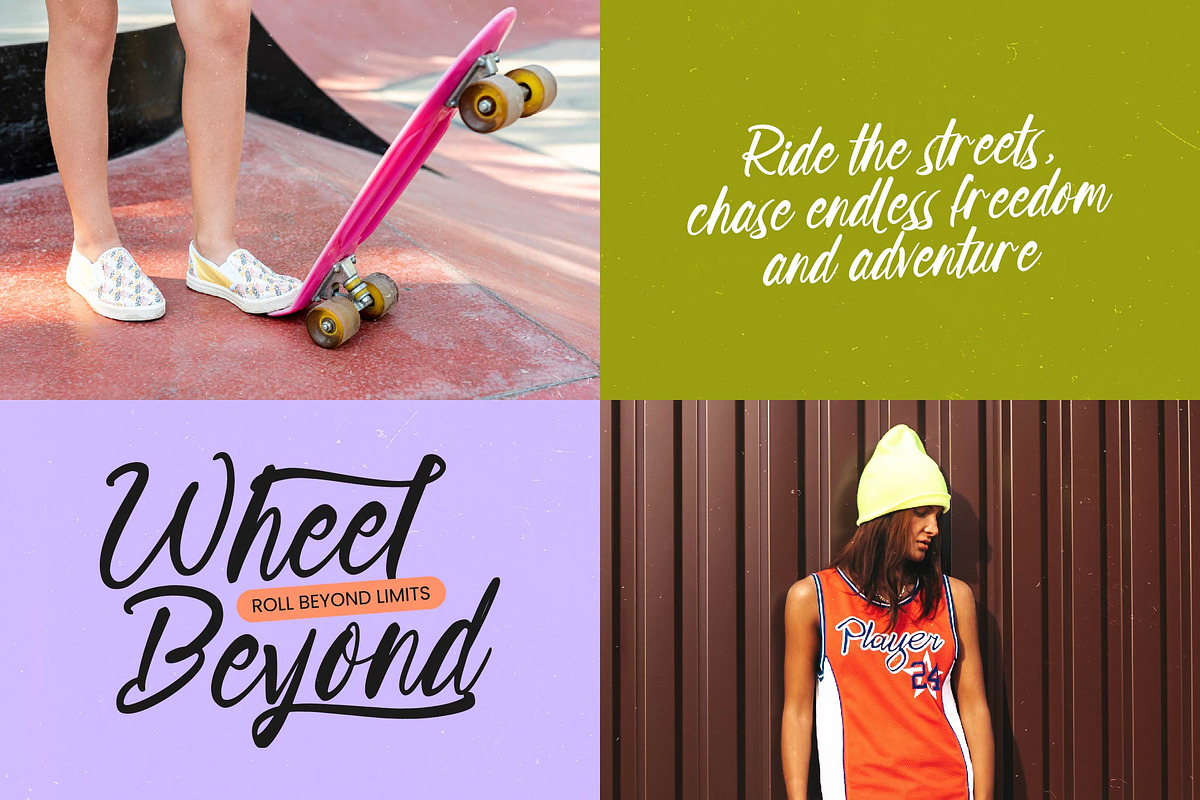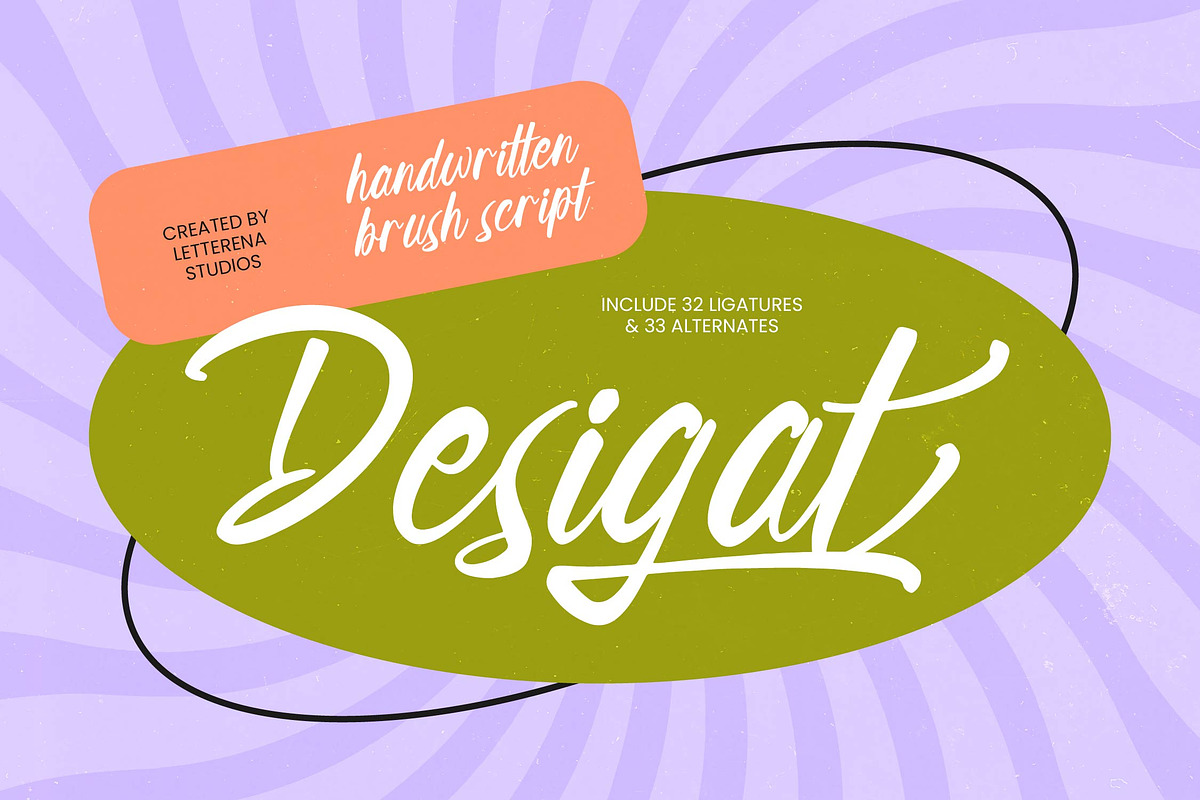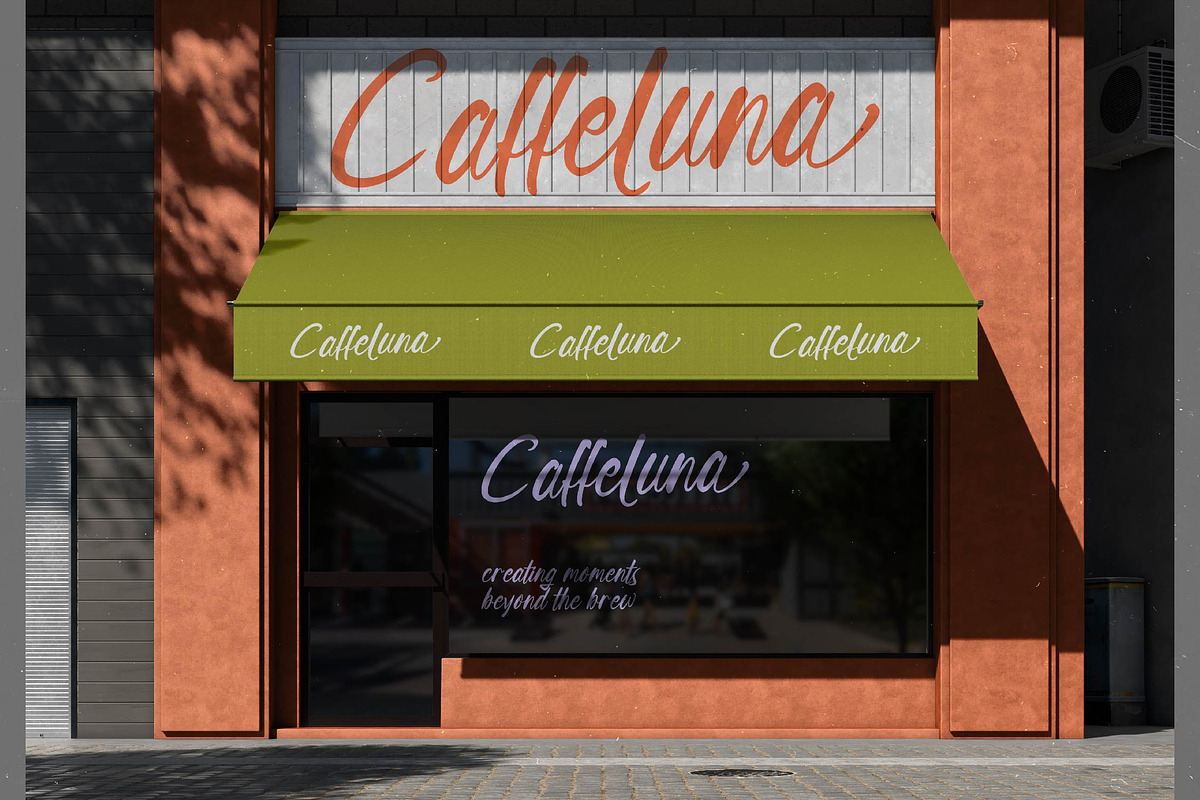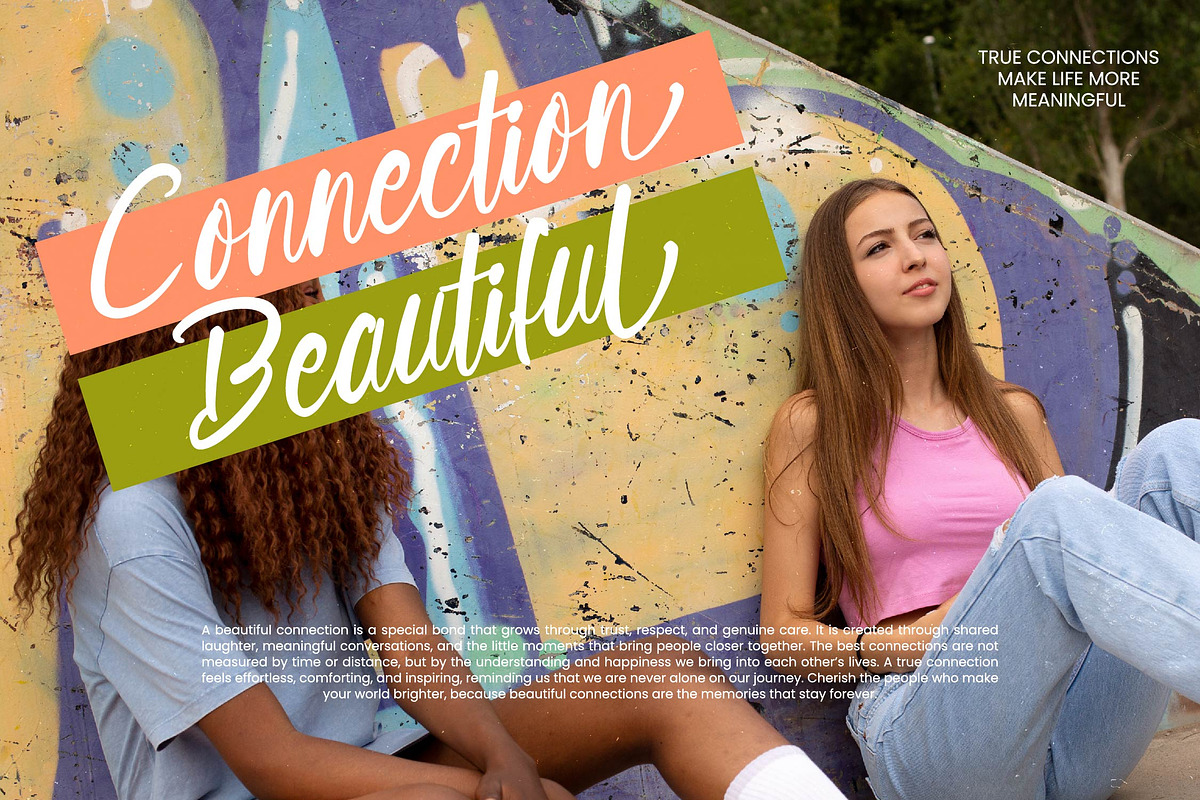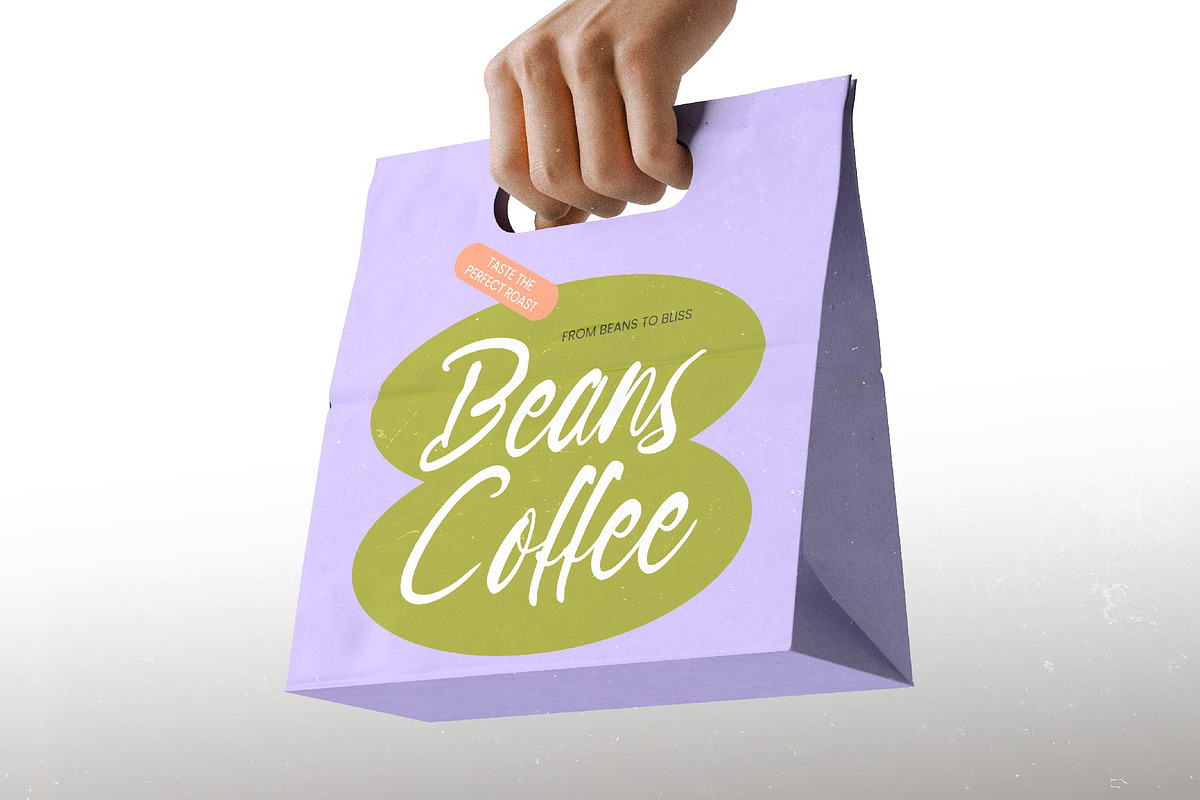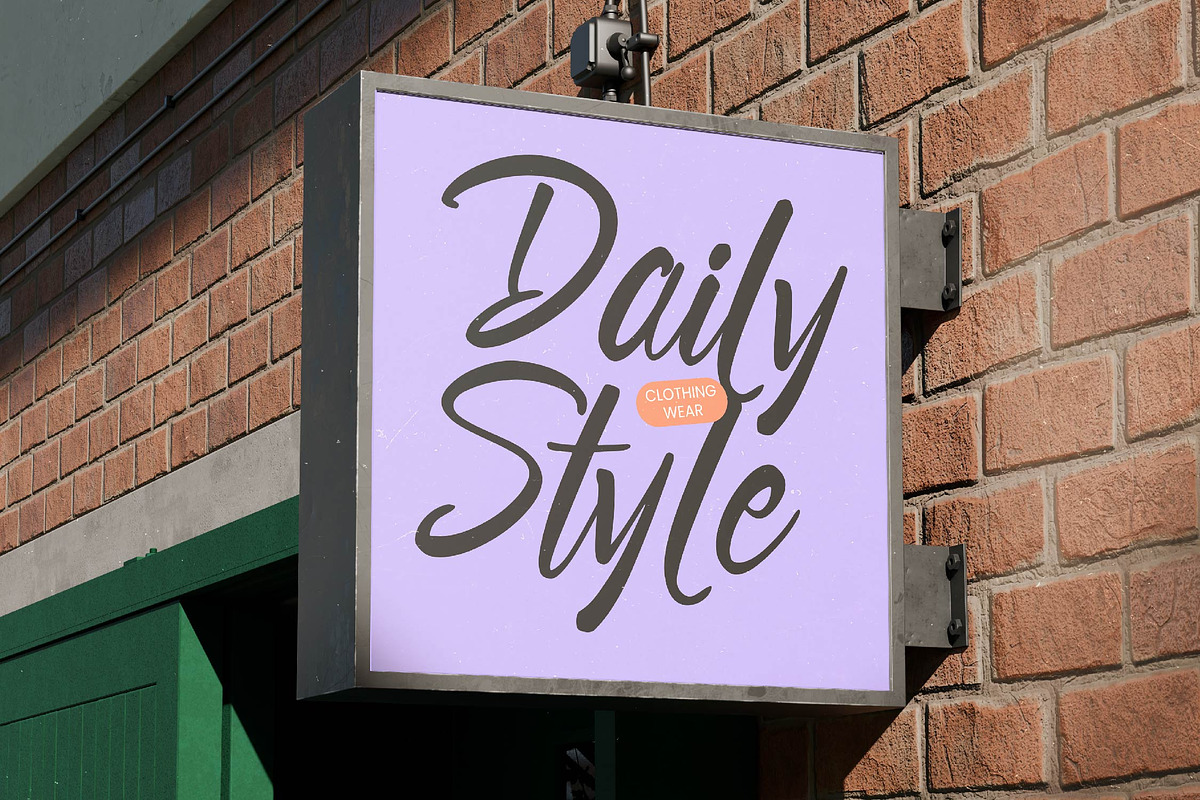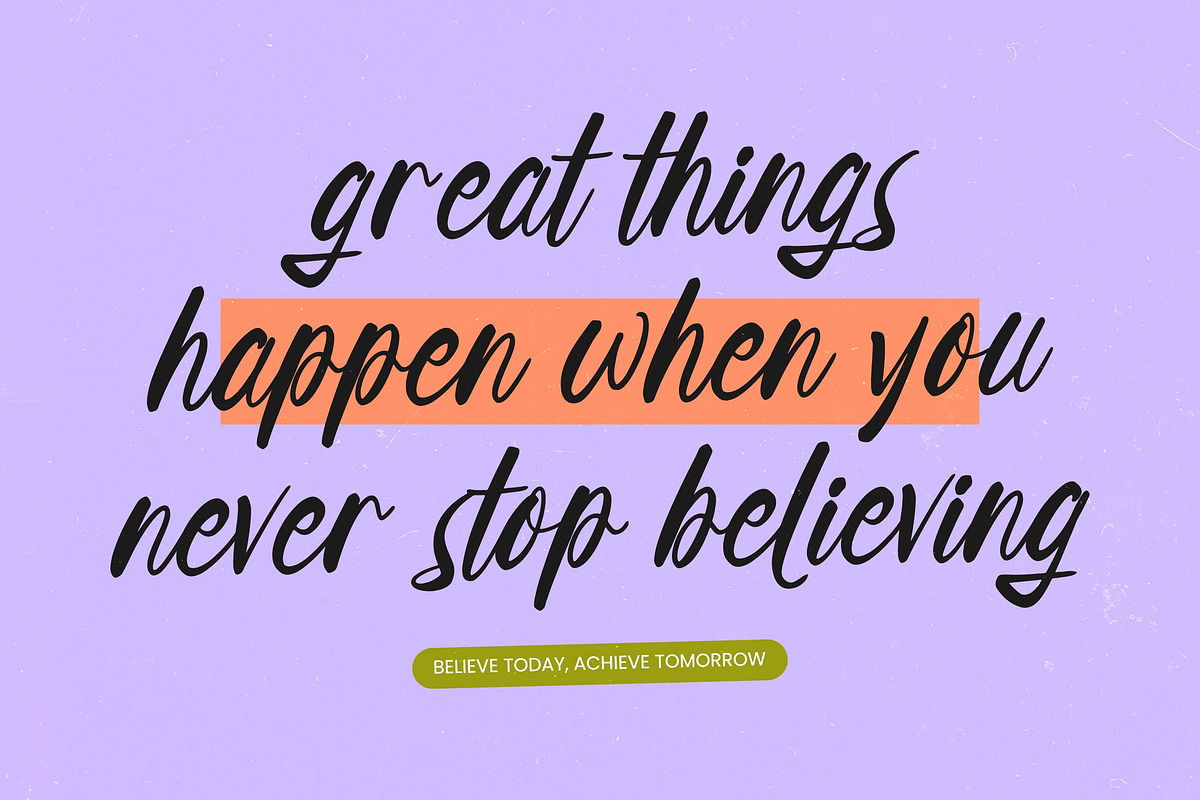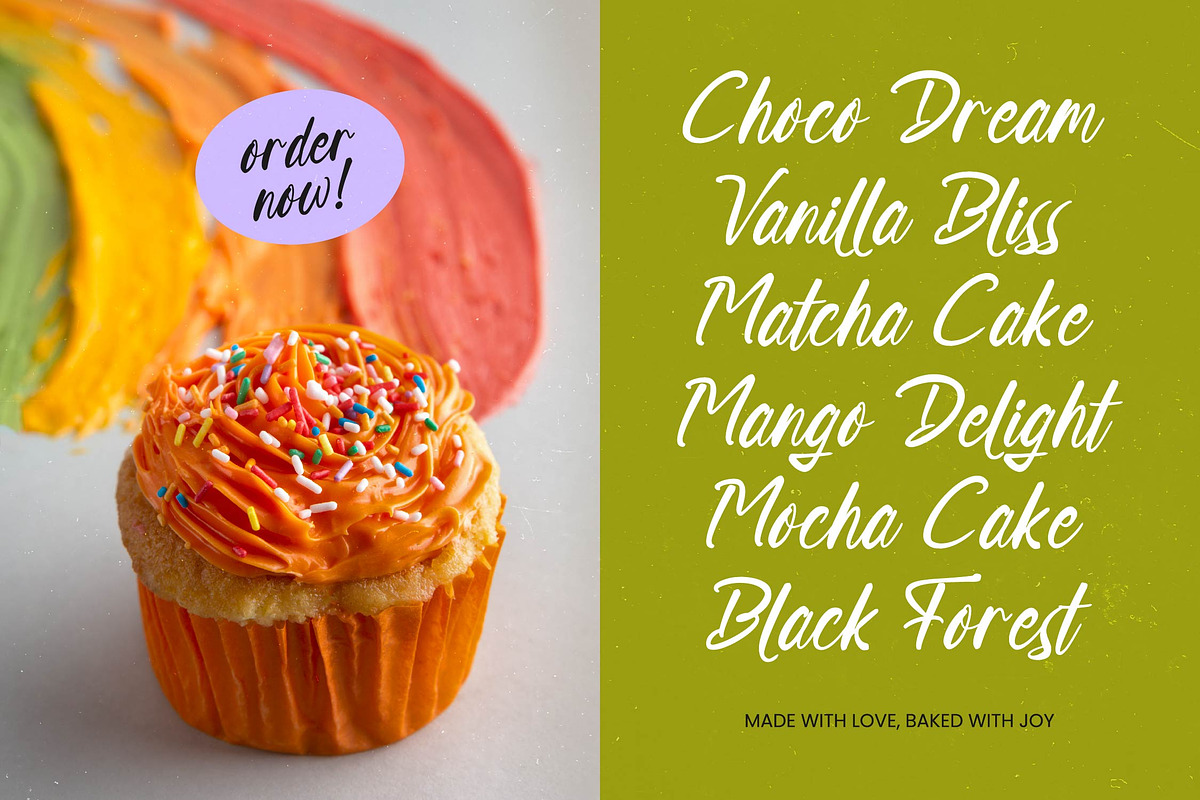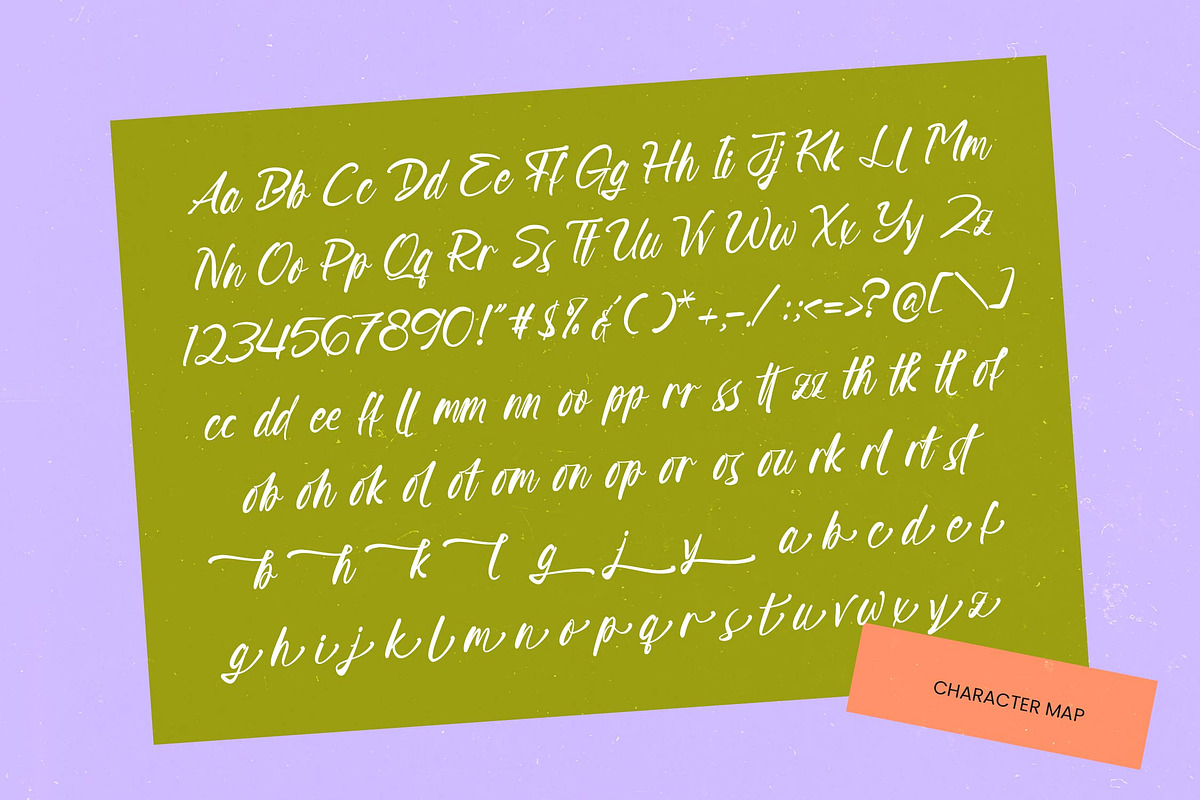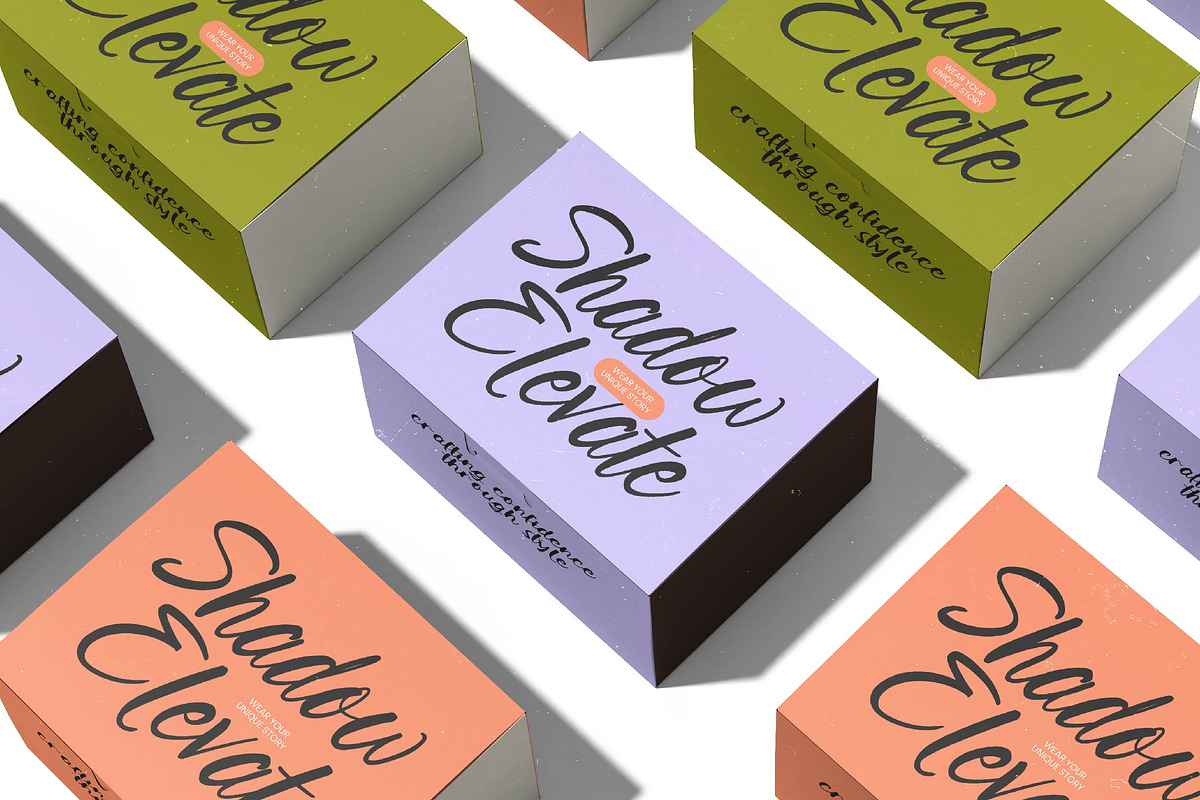
Desigat Handwritten Brush Script
Desigat - Handwritten Brush Script , Elevate your creative vision with a typeface that embodies raw elegance and artistic flair. Desigat - Handwritten Brush Script is a masterful creation that captures the organic flow of natural penmanship, offering a handcrafted aesthetic that feels both personal and professional. With its fluid strokes and dynamic energy, this font provides an immediate visual impact, making it an essential tool for designers seeking to add a touch of authentic character to their work.
Discover the ultimate solution for high-impact visual storytelling across a wide range of commercial applications. Desigat - Handwritten Brush Script is perfect for luxury branding, bespoke packaging design, and high-end editorial layouts where personality is paramount. Whether you are crafting modern advertisements, social media graphics, or exclusive event invitations, this typeface ensures your message is delivered with sophisticated charm and unmatched clarity.
Precision meets personality in a versatile typeface designed for maximum flexibility and technical excellence. Featuring 32 unique ligatures and 33 alternates, Desigat - Handwritten Brush Script allows for customized typographic compositions that stand out in a crowded market. With its extensive multilingual support, Desigat - Handwritten Brush Script adapts seamlessly across global markets, making it incredibly versatile for international projects and diverse multicultural branding initiatives.
Transform your design portfolio with a versatile asset that perfectly balances contemporary style with timeless appeal. Investing in Desigat - Handwritten Brush Script means choosing a premium typographic solution that enhances brand recognition and consumer engagement. Its polished finish and expressive personality make it the ideal choice for any graphic design project aiming for commercial success and a memorable brand identity.